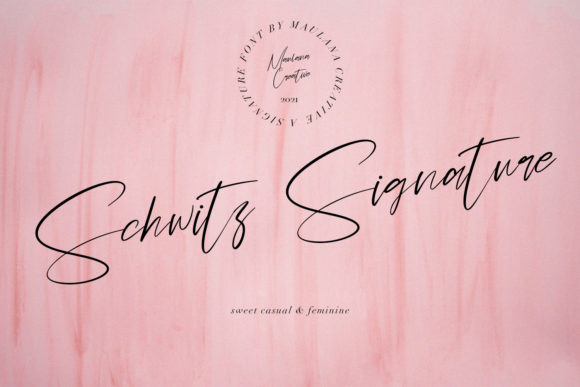
Journey through the world of captivating communication with Schwitz Signature Font, a masterpiece crafted for those who dare to make a statement. This exquisite script font, with its graceful strokes and enchanting curves, is the epitome of elegance and sophistication. Immerse yourself in the beauty of handwritten artistry, where each letter dances across the page with a touch of grace and a hint of intrigue. Let your words take center stage, adorned with the allure of Schwitz Signature Font.
Unleash your creativity and watch your designs come to life with a font that speaks volumes. Whether you're a designer, a blogger, or simply someone with a passion for aesthetics, Schwitz Signature Font will transform your projects into works of art. From mesmerizing logos that leave a lasting impression to captivating social media posts that demand attention, this font is your secret weapon to stand out from the crowd.
Step into the realm of boundless possibilities, where imagination knows no limits. With Schwitz Signature Font at your fingertips, craft stunning wedding invitations that evoke romance and elegance. Design eye-catching posters and flyers that ignite curiosity and intrigue. Create business cards that exude professionalism and leave a lasting impression. The versatility of this font is truly remarkable, allowing you to weave your magic across a myriad of projects.
Picture this: your words, draped in the beauty of Schwitz Signature Font, dancing across the screen or printed on high-quality paper. Your audience is captivated, their eyes drawn to the allure of your message, conveyed with a touch of artistry and a dash of intrigue. They can't help but feel the sincerity in your words, the passion behind your message. Schwitz Signature Font becomes a conduit of emotions, connecting you with your audience on a deeper level.
Embrace the allure of Schwitz Signature Font and unlock a world of creative possibilities. Let your imagination soar as you craft designs that captivate and inspire. With this font as your creative companion, you'll discover a new level of expression, leaving an unforgettable mark on the world one design at a time. Don't just communicate, captivate with Schwitz Signature Font.